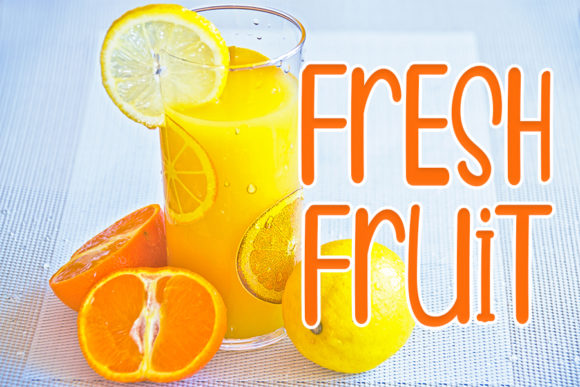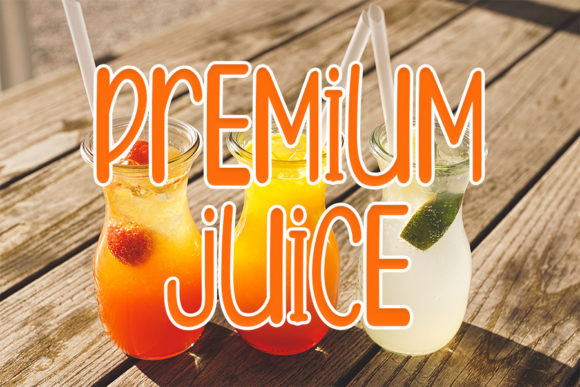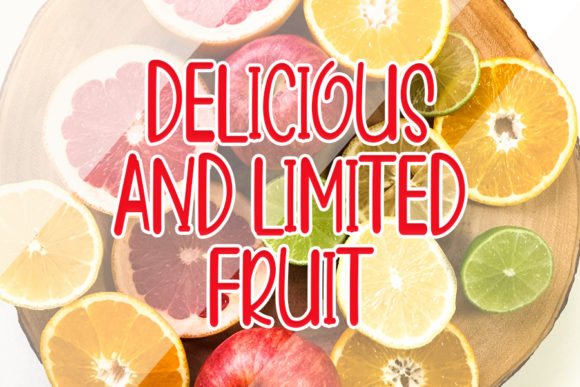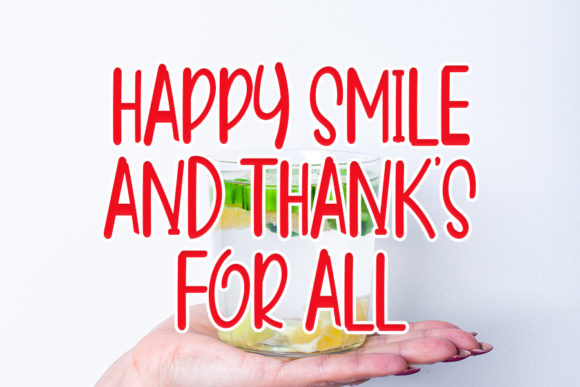
Lemonade Font
About Lemonade Font
Lemonade is a cute and joyful handwritten font. Trendy and sweet, this font will become your top choice, no matter the style of your design.